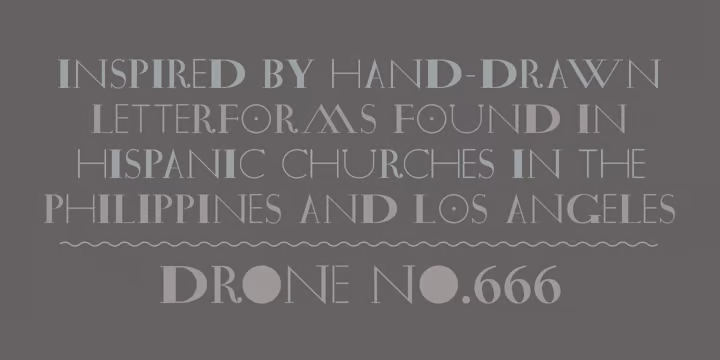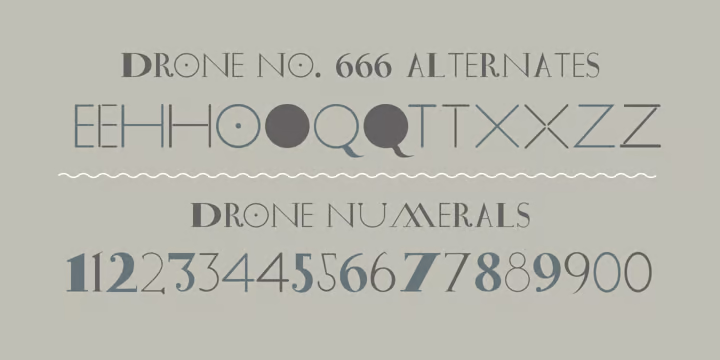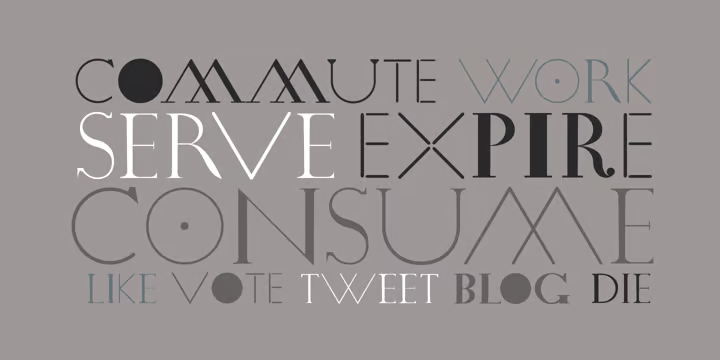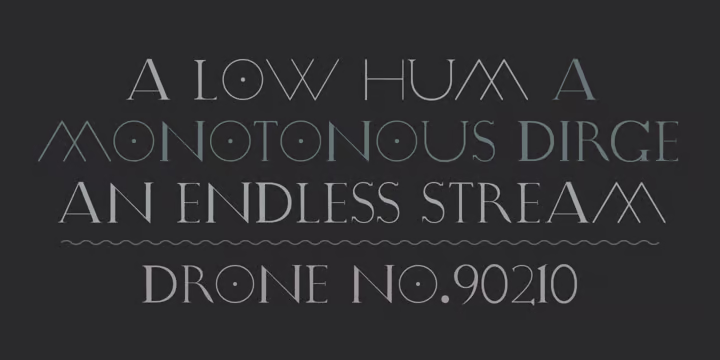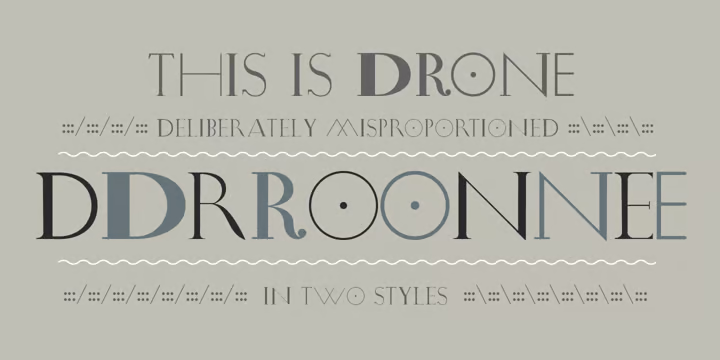
Drone Font Family
Drone is a deliberately misproportioned typeface, inspired by hand-drawn lettering found in Spanish/Hispanic Catholic churches in the Philippines and Los Angeles. These naive letterforms appeared to be ‘copies of copies’ – and in aiming to recreate the beauty of the Vatican and the Sistine Chapel they instead created something unique with its own charm and beauty. As a curious aside, the forms are reminiscent of those found in 16th century English calligraphy too. Drone is available in two styles: No.666 and No.90210.
Drone Font Family is a Typeface font that brings a professional and versatile look to your projects. Drone is a deliberately misproportioned typeface, inspired by hand-drawn lettering found in Spanish/Hispanic Catholic churches in the Philippines and Los Angeles.